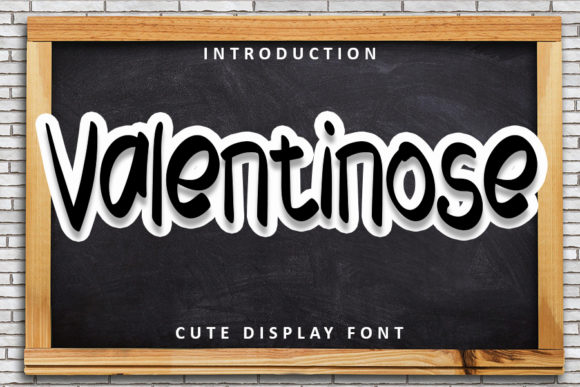
Introducing Valentinose Font, a Bewitching Display Typeface for Your Halloween Posters!
Are you ready to conjure up a haunting aura in your Halloween posters? Look no further than Valentinose Font, the captivating display typeface designed to cast a spell on your designs. Created by the talented FL Space, this round-lettered and magical font exudes a friendly and simple charm that will add a touch of enchantment to each of your creations.
Transport your posters to a realm of mystery and magic with Valentinose Font. Its alluring curves and playful characters will weave a web of intrigue, captivating the eyes of all who behold it. Unleash your creativity and let the hauntingly beautiful strokes of this font ignite your imagination, conjuring up visions of witches' brews, eerie graveyards, and ghostly apparitions.
Valentinose Font isn't just about aesthetics; it's about evoking emotions and creating an unforgettable experience for your audience. Picture your Halloween posters adorned with this enchanting font, sending shivers down their spines and leaving them spellbound. From spine-chilling invitations to eerie flyers, Valentinose Font will transform your posters into captivating works of art that whisper tales of the supernatural.
With Valentinose Font, you'll unlock a world of possibilities. Effortlessly add it to your design projects and witness the magic unfold. Its user-friendly nature makes it a breeze to work with, ensuring a seamless and enjoyable design experience. Prepare to be amazed as your designs take on a life of their own, oozing with a spooky charm that will make them the talk of the town this Halloween.